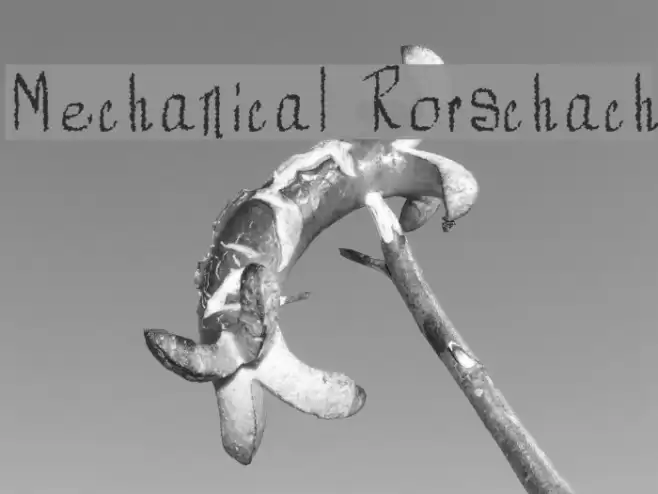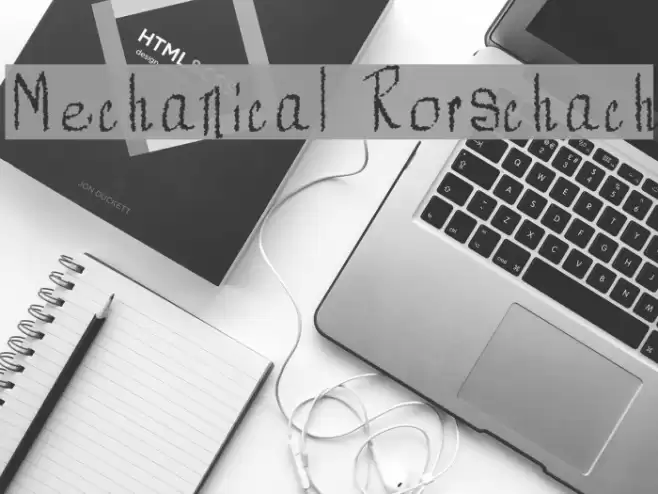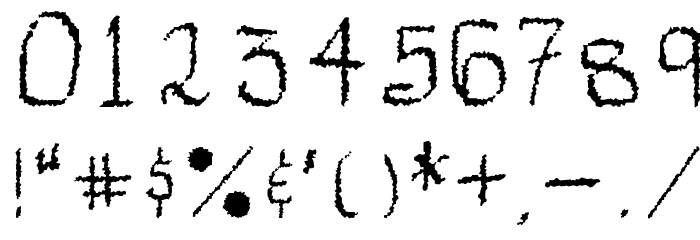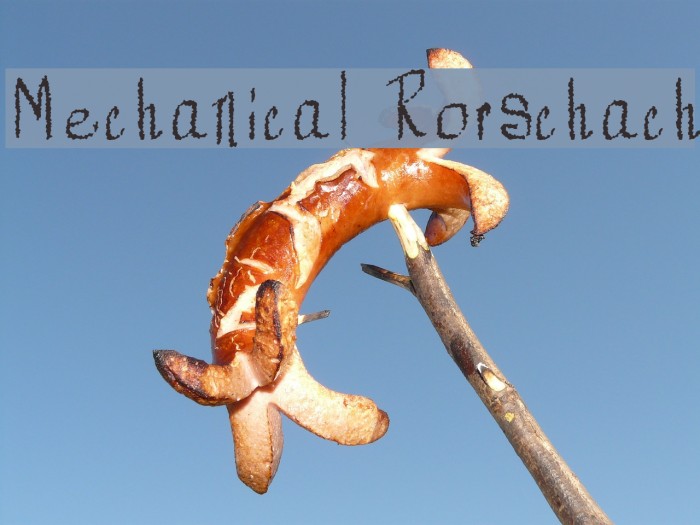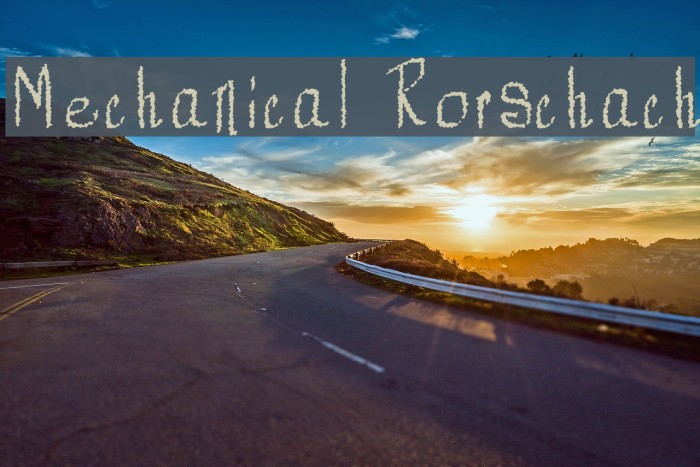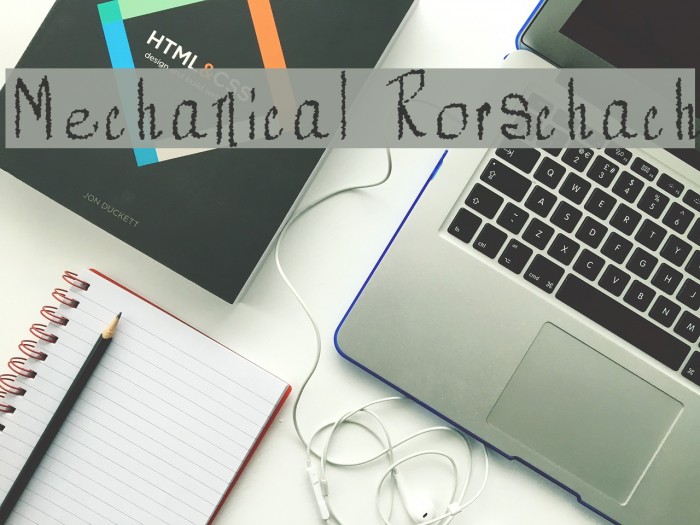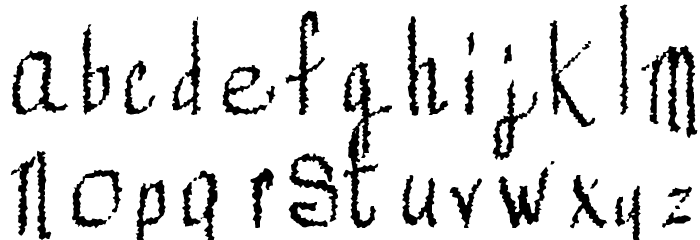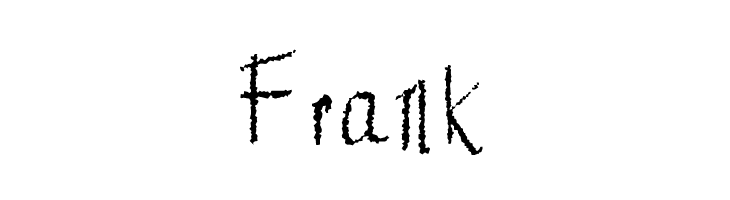
Mechanical Rorschach Font
Mechanical Rorschach Description
This font exhibits a unique, hand-drawn style with irregular, jagged edges that give it a mechanical yet organic feel. The uppercase and lowercase letters maintain a consistent height, but the uneven lines and rough texture create a sense of movement and energy. The numerals and special characters follow the same design principles, contributing to a cohesive and distinctive appearance. The font's overall aesthetic is reminiscent of a Rorschach inkblot test, with its unpredictable and abstract forms. This design choice makes it stand out, offering a bold statement in any project.
A jagged, hand-drawn font with a mechanical, inkblot-inspired style from Uncategorized fonts.
- Proposed Projects: Ideal for artistic projects, album covers, posters, and any design requiring a bold, unconventional typeface.
- Use Case: Headlines, Artistic designs, Posters